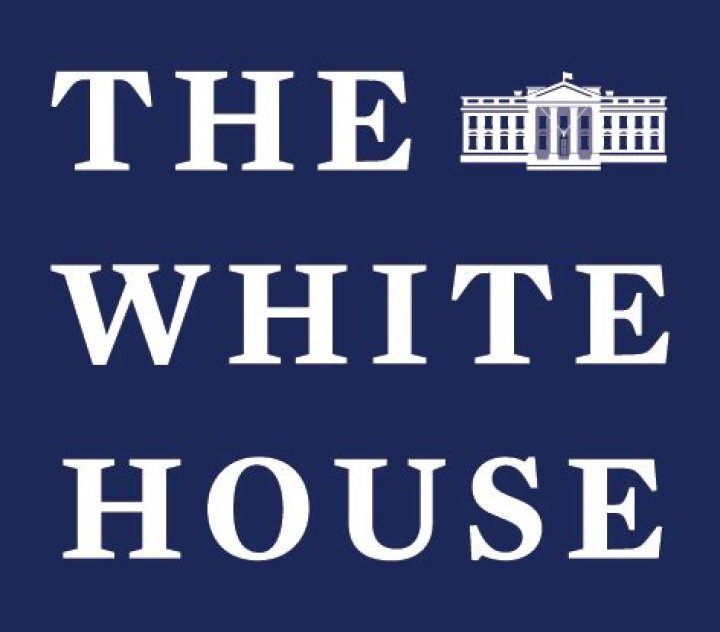
What is the font used for the White House logo?
The White House uses a rare type called Caslon 3 Lt STD in a Roman font. You can find and download it here. Caslon 3 Lt Std Roman